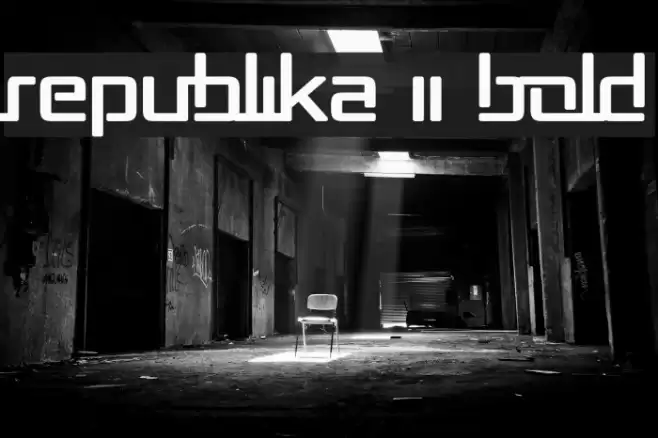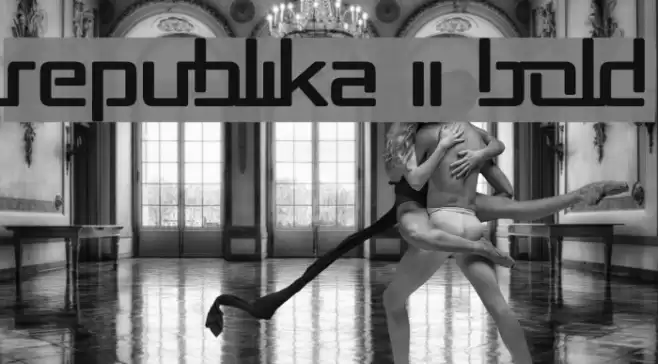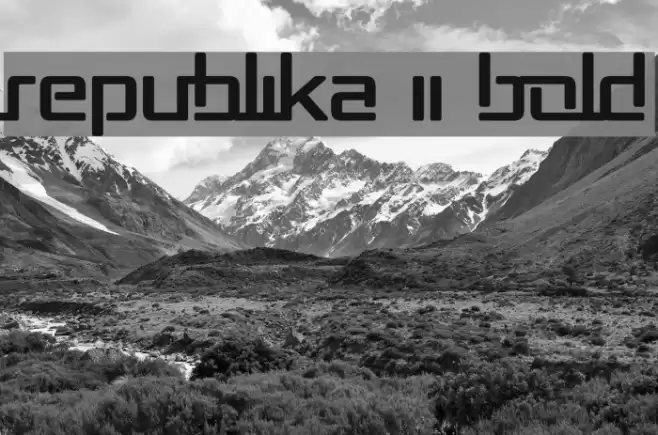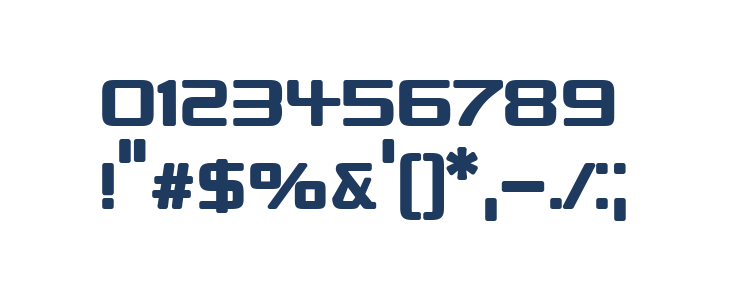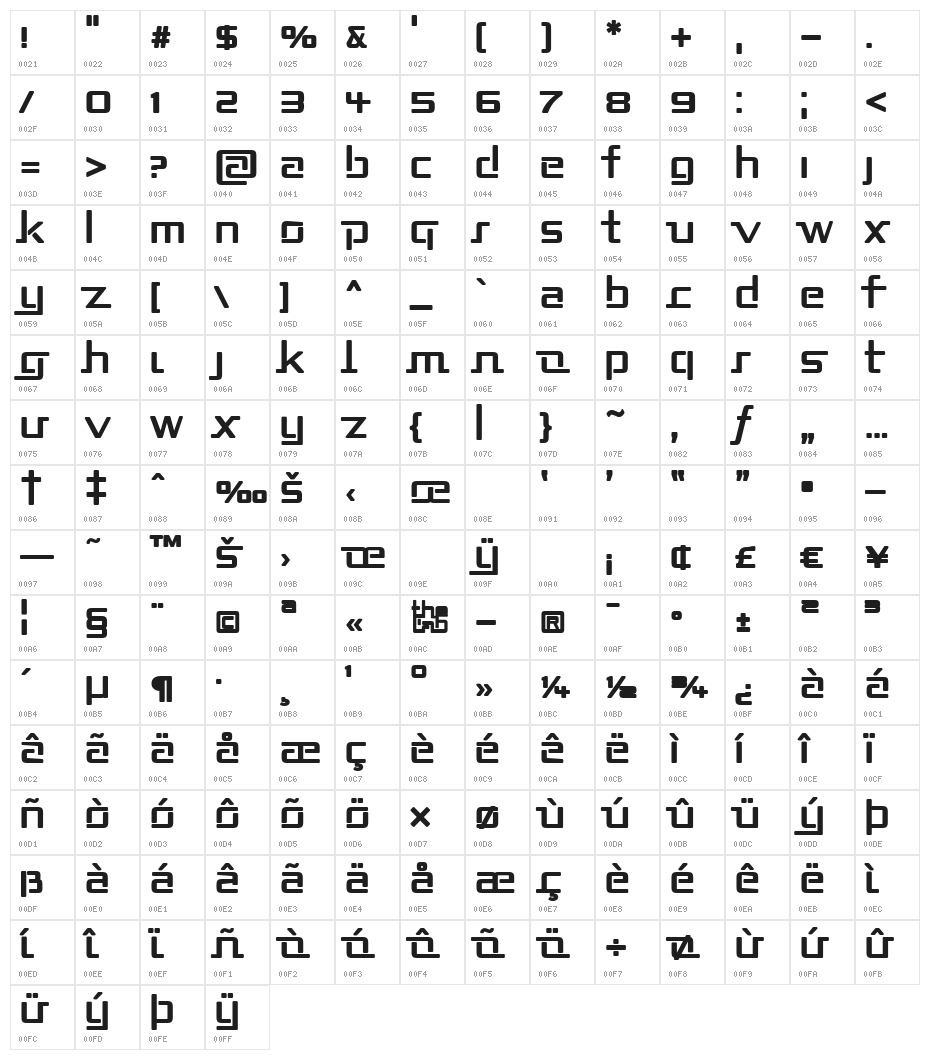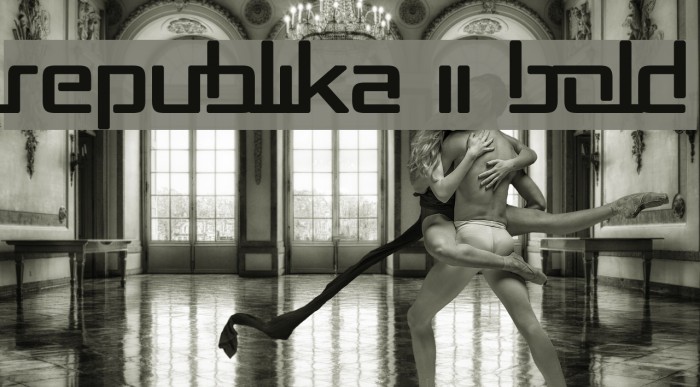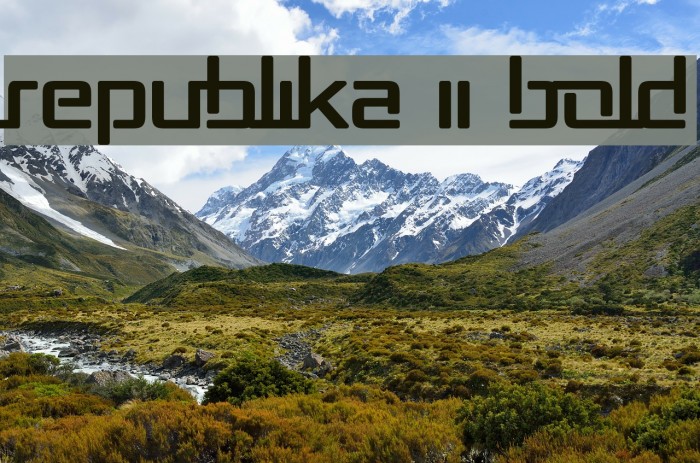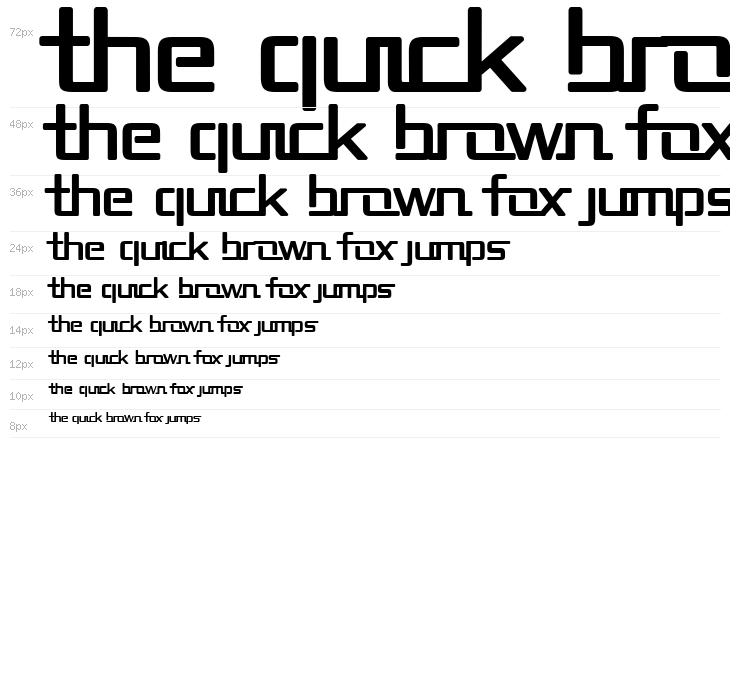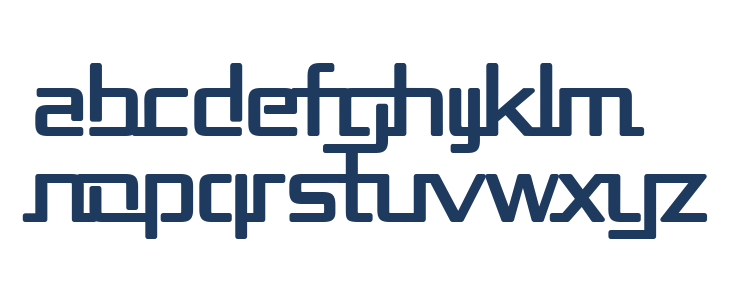
Republika II Bold Font
Republika II Bold Description
This font features a bold, geometric design with a modern and futuristic aesthetic. The characters are constructed with consistent stroke widths, giving it a uniform and structured appearance. The rounded edges and corners soften the overall look, while maintaining a strong and assertive presence. The font's design is clean and minimalistic, making it suitable for a variety of applications. Its unique style is characterized by a blend of straight lines and subtle curves, creating a harmonious balance between rigidity and fluidity. The font includes both uppercase and lowercase letters, numerals, and a selection of special characters, ensuring versatility in use.
A bold, geometric font with a modern and futuristic style from Uncategorized fonts.
- Proposed Projects: Ideal for technology branding, modern advertising, digital interfaces, and futuristic-themed projects.
- Use Case: Headlines, Logos, Digital Interfaces